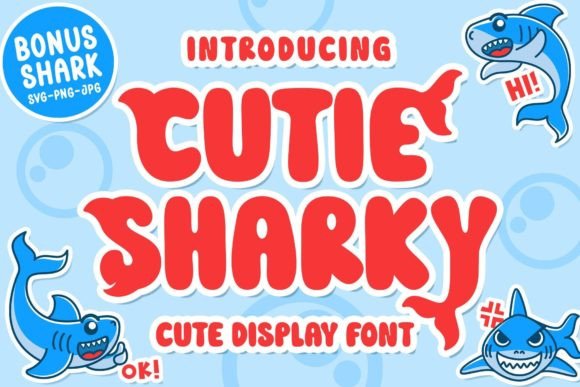
Introducing Cutie Sharky Font: The Perfect Addition to Your Kids’ Designs
Are you looking for a font that can add a touch of cuteness and fun to your kids’ designs? Look no further than Cutie Sharky Font! This adorable display font is inspired by a little cute shark and is perfect for kids’ designs with Shark or Ocean themes. In this article, we’ll take a closer look at Cutie Sharky Font and explore its features, benefits, and uses.
What is Cutie Sharky Font?
Cutie Sharky Font is a cute and fun display font that is inspired by a little cute shark. The font is designed to be perfect for kids’ designs with Shark or Ocean themes, such as children’s clothes, birthday cards, children’s books, and much more. The font is created with a playful and whimsical feel, making it ideal for designs that require a touch of fun and personality.
Key Features of Cutie Sharky Font
Cutie Sharky Font comes with several key features that make it a great addition to your design toolkit. Some of its key features include:
- Cute and Fun Design: The font is designed to be cute and fun, making it perfect for kids’ designs.
- Bonus Cute Shark Illustration: The font comes with a bonus cute shark illustration design that you can use to make your designs more attractive and cute.
- Multipurpose: The font is versatile and can be used for a variety of design projects, including children’s clothes, birthday cards, children’s books, and much more.
Benefits of Using Cutie Sharky Font
There are several benefits to using Cutie Sharky Font in your designs. Some of the benefits include:
- Unique and Playful Look: The font adds a unique and playful look to your designs, making them stand out from the crowd.
- Time-Saving: The font comes with a bonus cute shark illustration design, which can save you time and effort in creating your own illustrations.
Uses of Cutie Sharky Font
Cutie Sharky Font is a versatile font that can be used for a variety of design projects. Some of the uses of the font include:
- Children’s Clothes: The font is perfect for designing children’s clothes with Shark or Ocean themes.
- Birthday Cards: The font can be used to create fun and playful birthday cards for kids.
- Children’s Books: The font is ideal for designing children’s books with Shark or Ocean themes.
- Posters and Flyers: The font can be used to create eye-catching posters and flyers for kids’ events and activities.
Cutie Sharky Font is a cute and fun display font that is perfect for kids’ designs with Shark or Ocean themes. The font is designed to be playful and whimsical, making it ideal for designs that require a touch of fun and personality. With its PUA encoding, bonus cute shark illustration design, and multipurpose uses, Cutie Sharky Font is a great addition to your design toolkit. Whether you’re designing children’s clothes, birthday cards, or children’s books, Cutie Sharky Font is the perfect choice.
- Q: What is Cutie Sharky Font?
- A: Cutie Sharky Font is a cute and fun display font inspired by a little cute shark.
- Q: What is the font perfect for?
- A: The font is perfect for kids’ designs with Shark or Ocean themes, such as children’s clothes, birthday cards, children’s books, and much more.